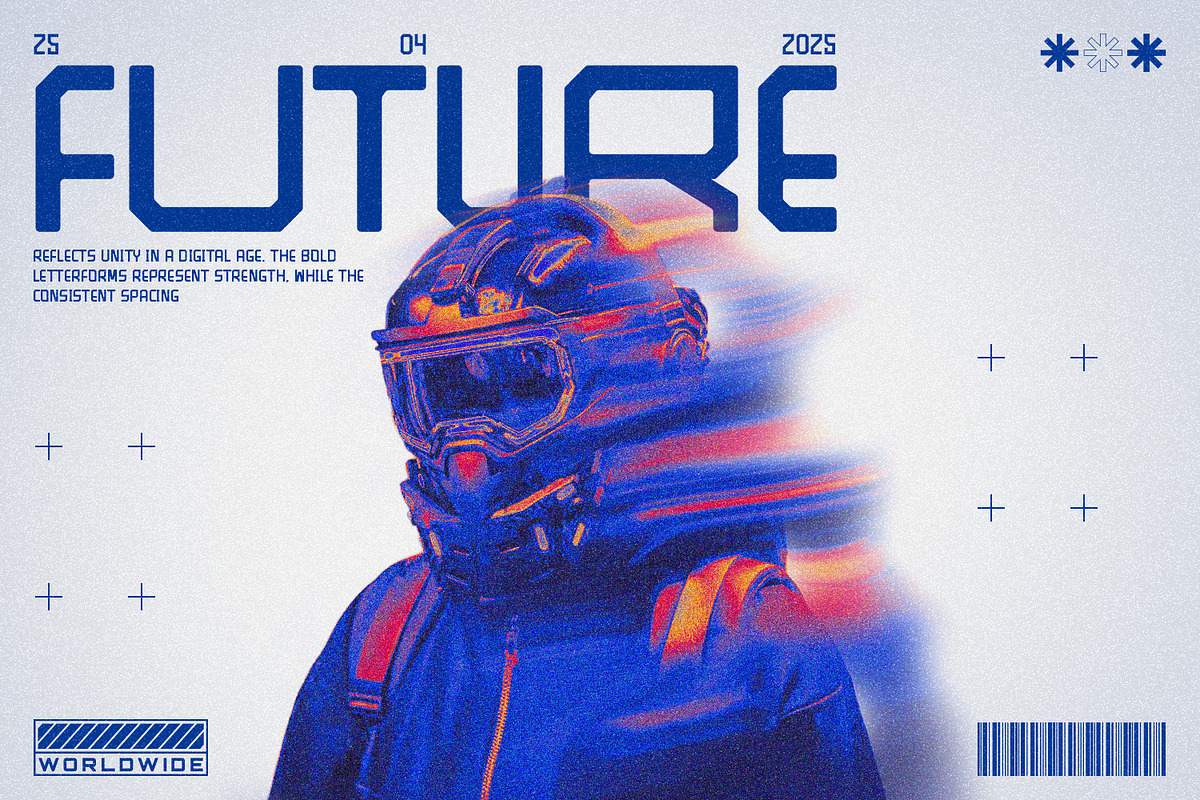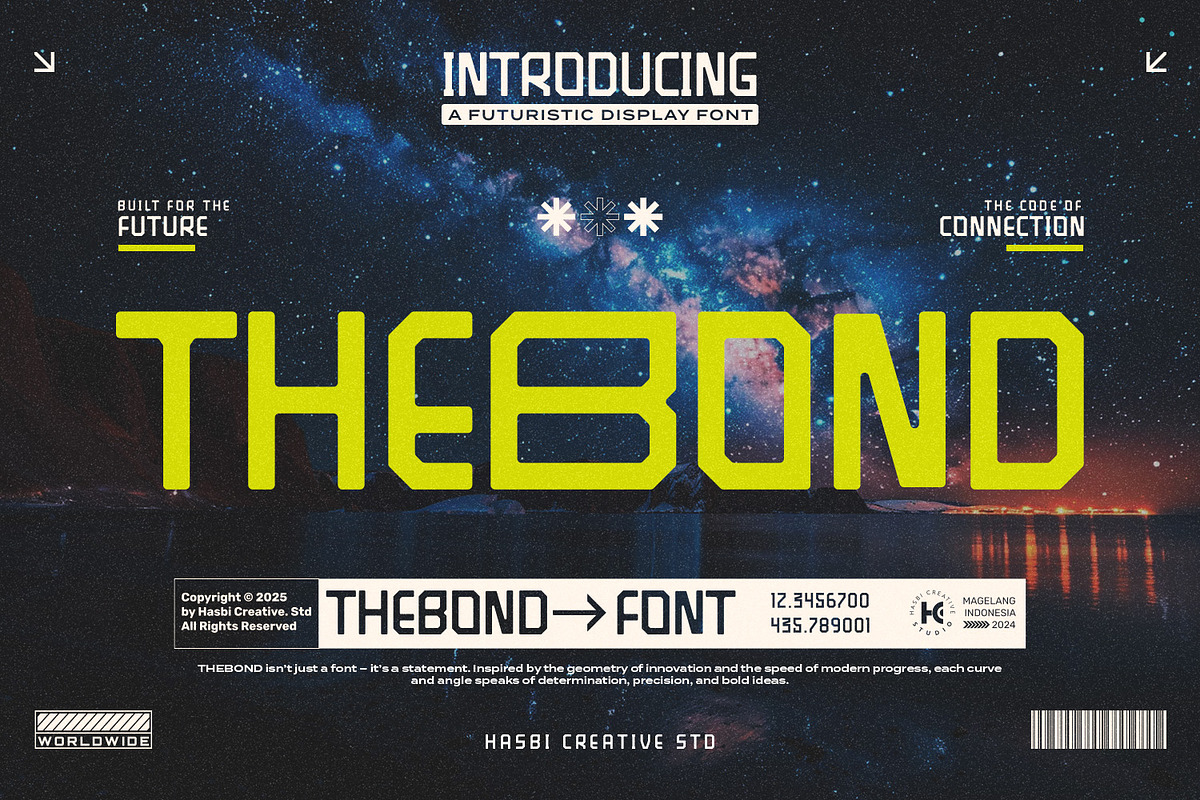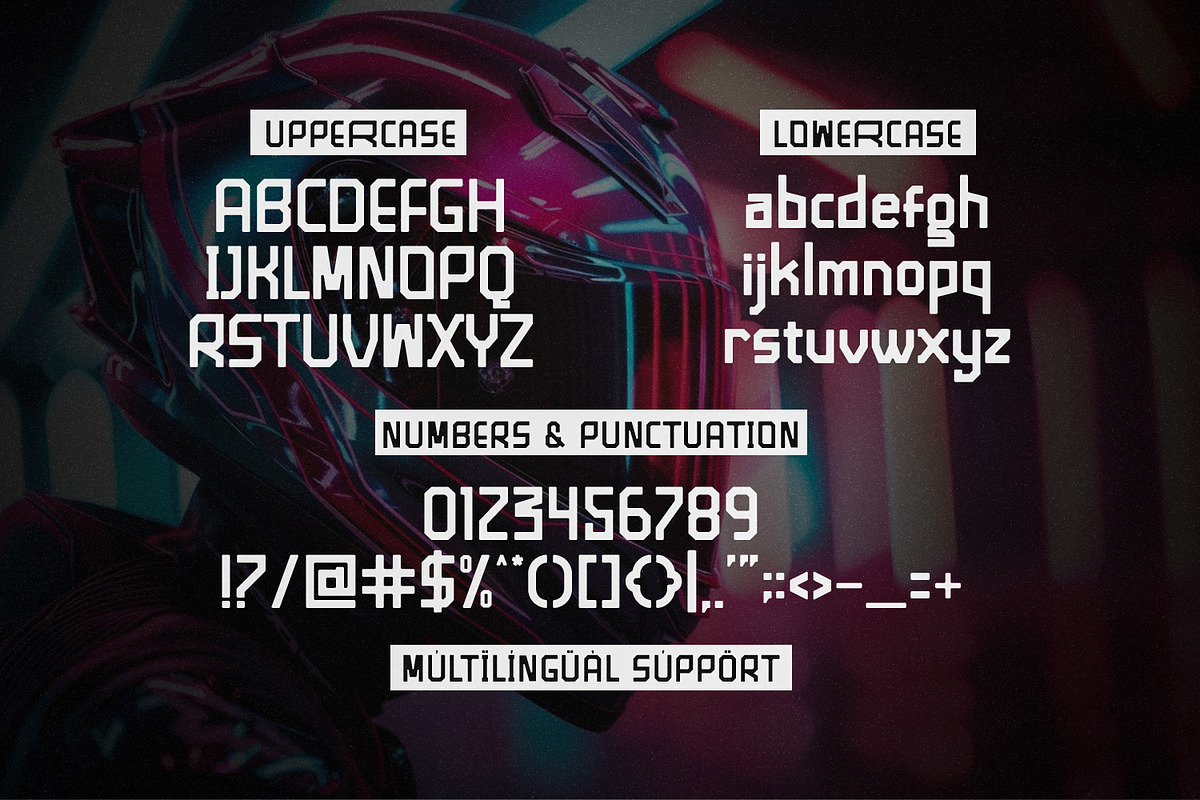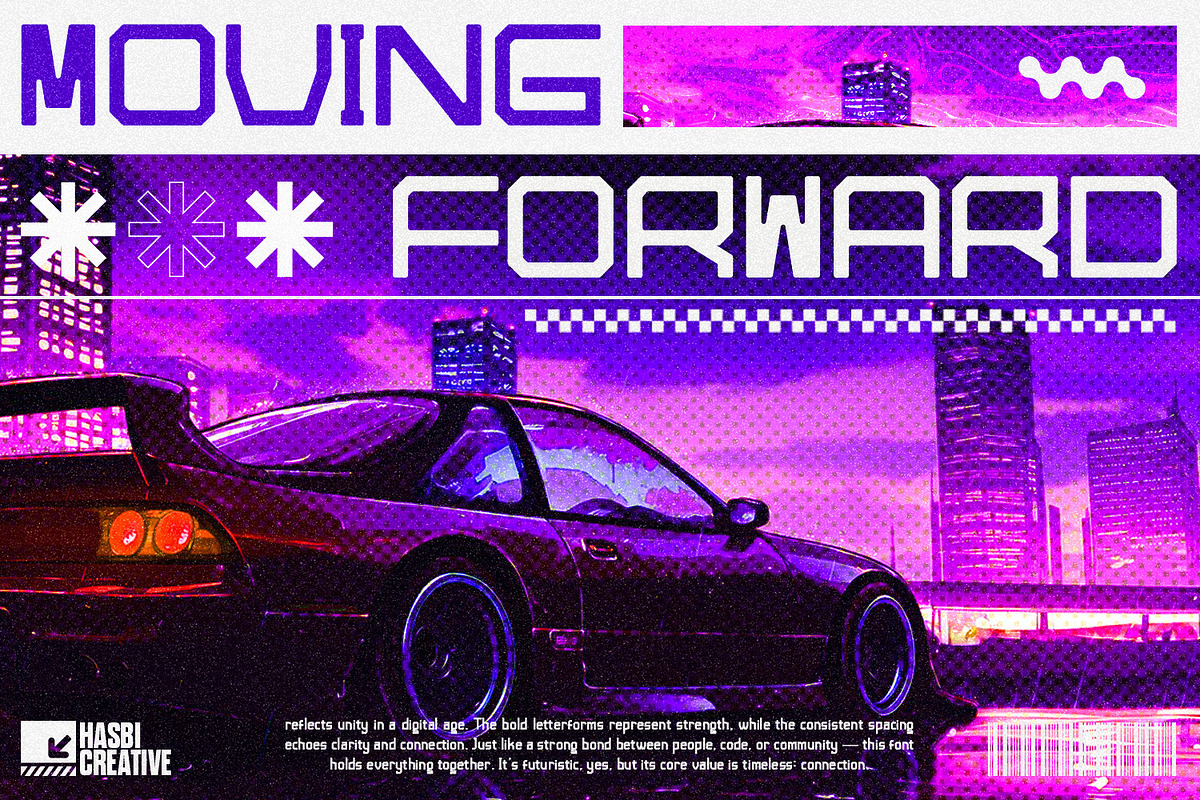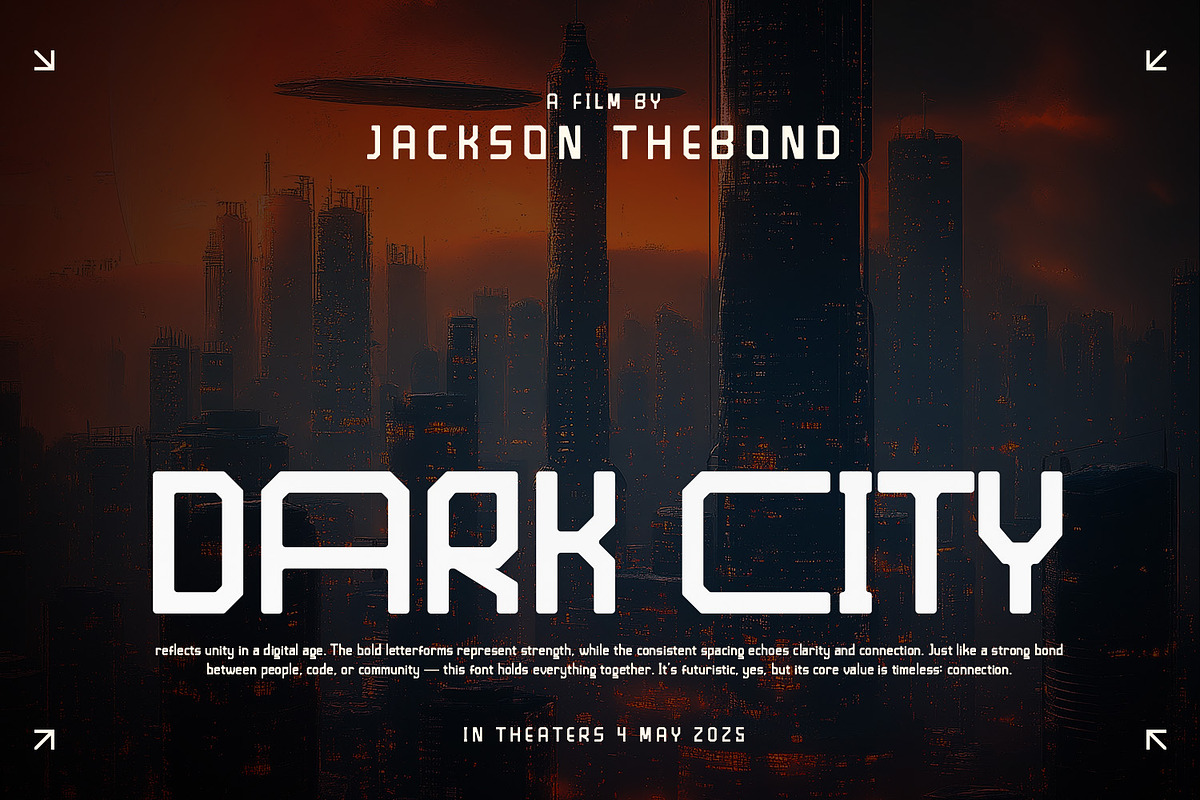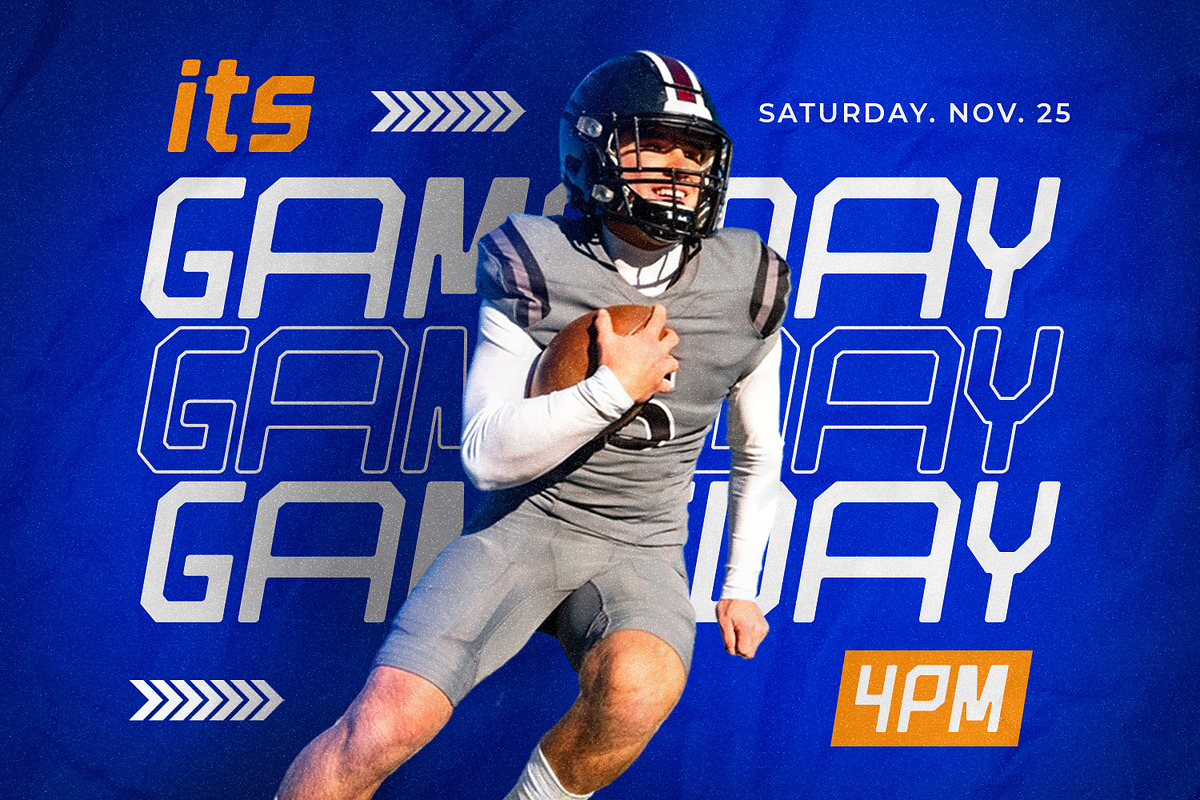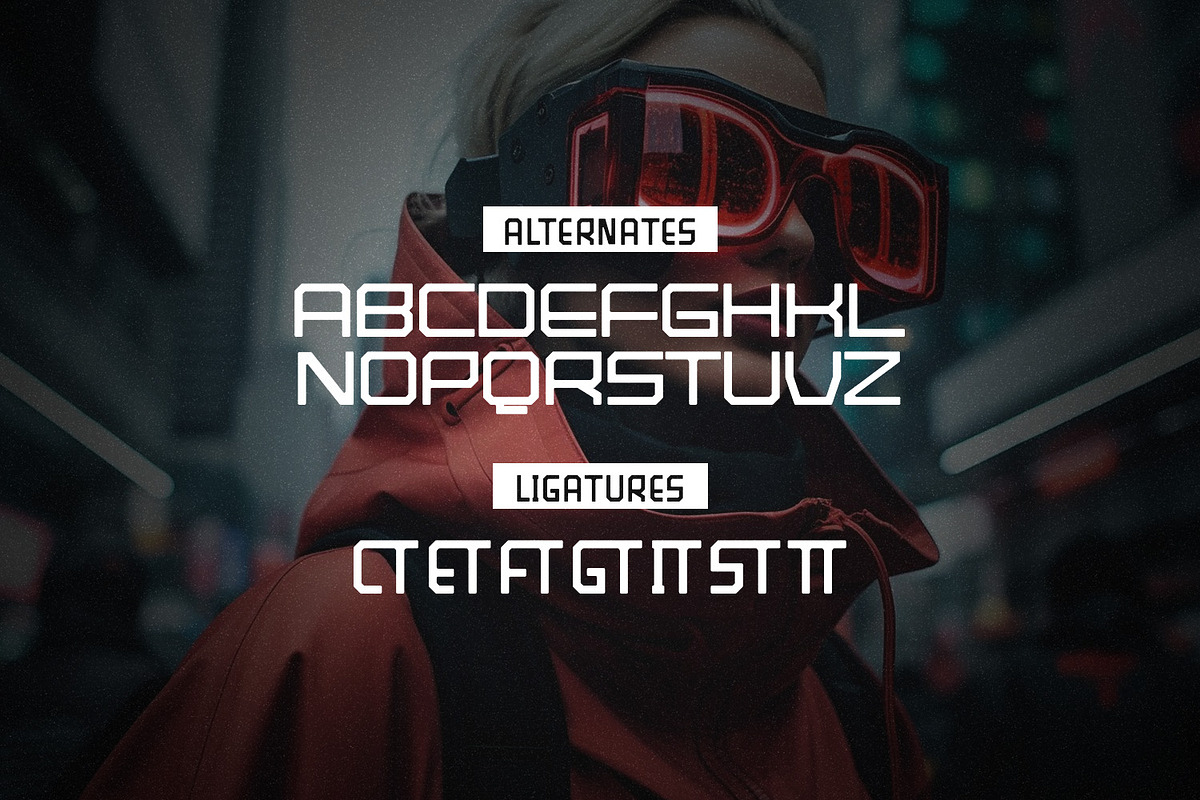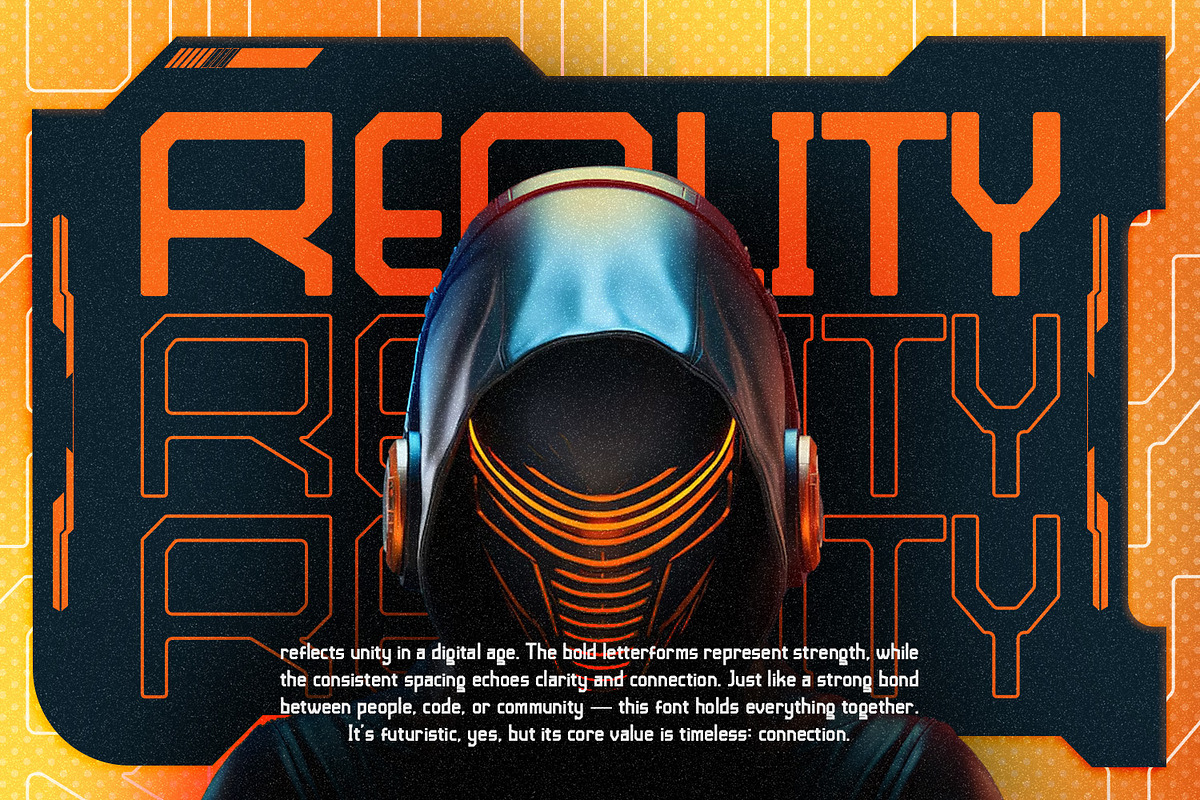
Thebond - Futuristic Display
Introducing THEBOND — A Futuristic Display Font
THEBOND isn't just a font — it's a statement. Inspired by the geometry of innovation and the speed of modern progress, each curve and angle speaks of determination, precision, and bold ideas. This font features uppercase and lowercase letters, making it versatile for both impactful headlines and stylish body text.
- Uppercase & Lowercase Letters
- Numerals & Basic Punctuation
- Perfect for headlines, branding, posters, and digital designs
- Futuristic and minimal style
Ideal for:
- Technology Brands
- Science Fiction Projects
- E-Sport and Gaming Titles
- Space Exploration Themes
- Digital and Innovative Branding
Build your future with the bold and sleek character of THEBOND!